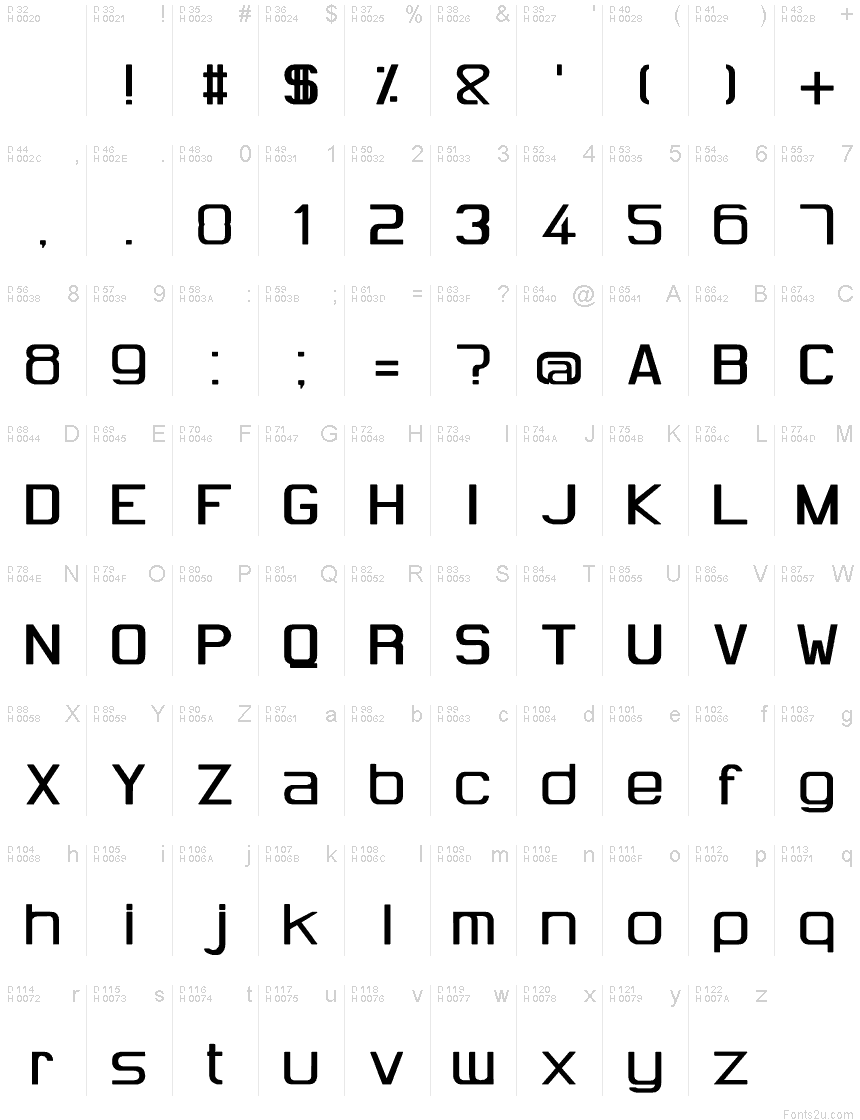
Hug Femmes Bold by David Espinosa of Mr.HotRod is a free geometric sans serif with tall letterforms and firm vertical strokes. Rounded joins and squared ends soften the engineered drawing. The proportions vary noticeably.
Its sleek structure suits both fashion branding and technology event graphics, linking different subjects through the same precise finish. It also fits magazine covers and product packaging. In those settings, it can become an emblem rather than neutral text.